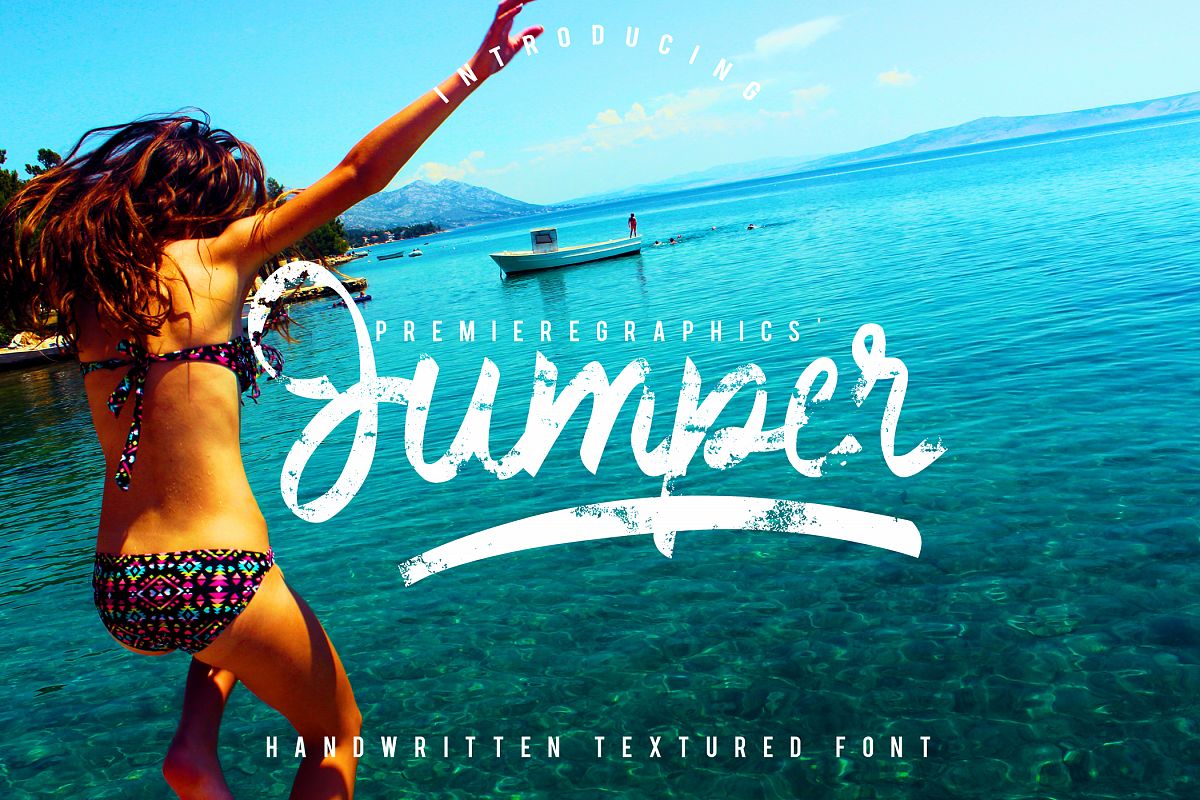
Jumper
Jumper is not your ordinary handwritten script font. It is textured to make its rough personality, fiercer and bolder. Jumper is very great for photography, blogs, logo and branding, book covers, bands, etc. - included in the font are underlines and beautifully made extra characters.